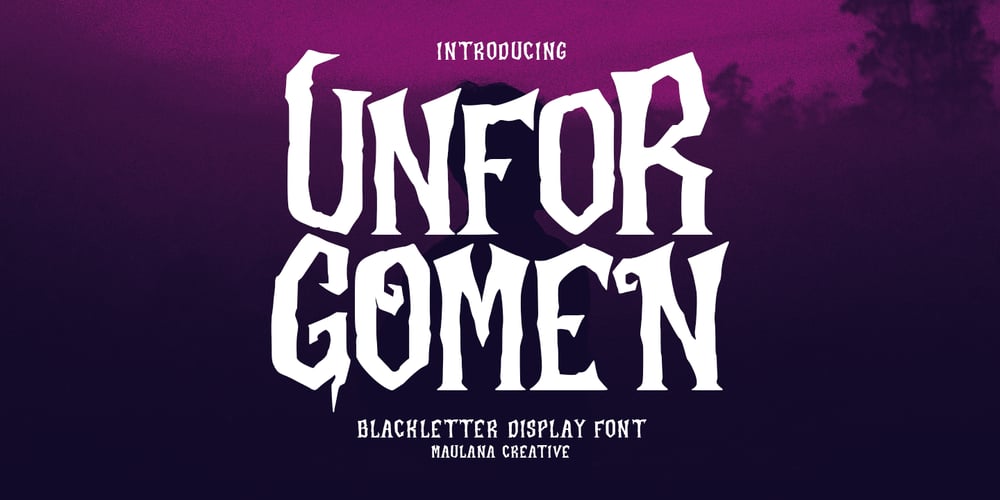
MC Unforgomen Font Family was designed by Gilang Maulana and published by Maulana Creative. MC Unforgomen contains 1 styles and family package options. Unforgomen is a classic display serif font. With medium low contrast stroke, fun character with a bit of ligatures and alternates. To give you an extra creative work. Unforgomen font support multilingual more than 100+ language. This font is good for logo design, Social media, Movie Titles, Books Titles, a short text even a long text letter and good for your secondary text font with script or serif. Make a stunning work with Unforgomen font.Cheers,Maulana Creative